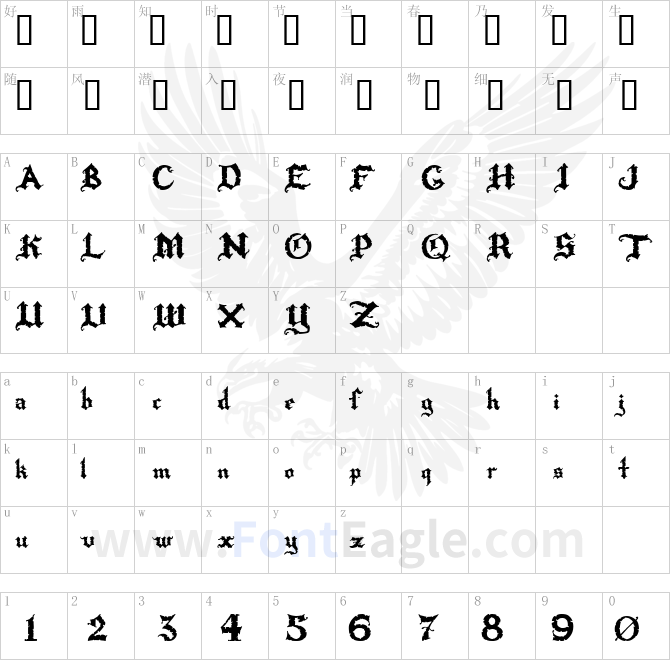
- Font name:Rapscallion
- Font Copyright:Rapscallion is a FREE pirate-style font inspired by Melbourne, Australia folk-punk band MUTINY (http://www.mutiny.com.au). Details show best at 48-pt or higher (prints cleaner than appears on screen). Questions/Comments: ryan_splint@yahoo.com